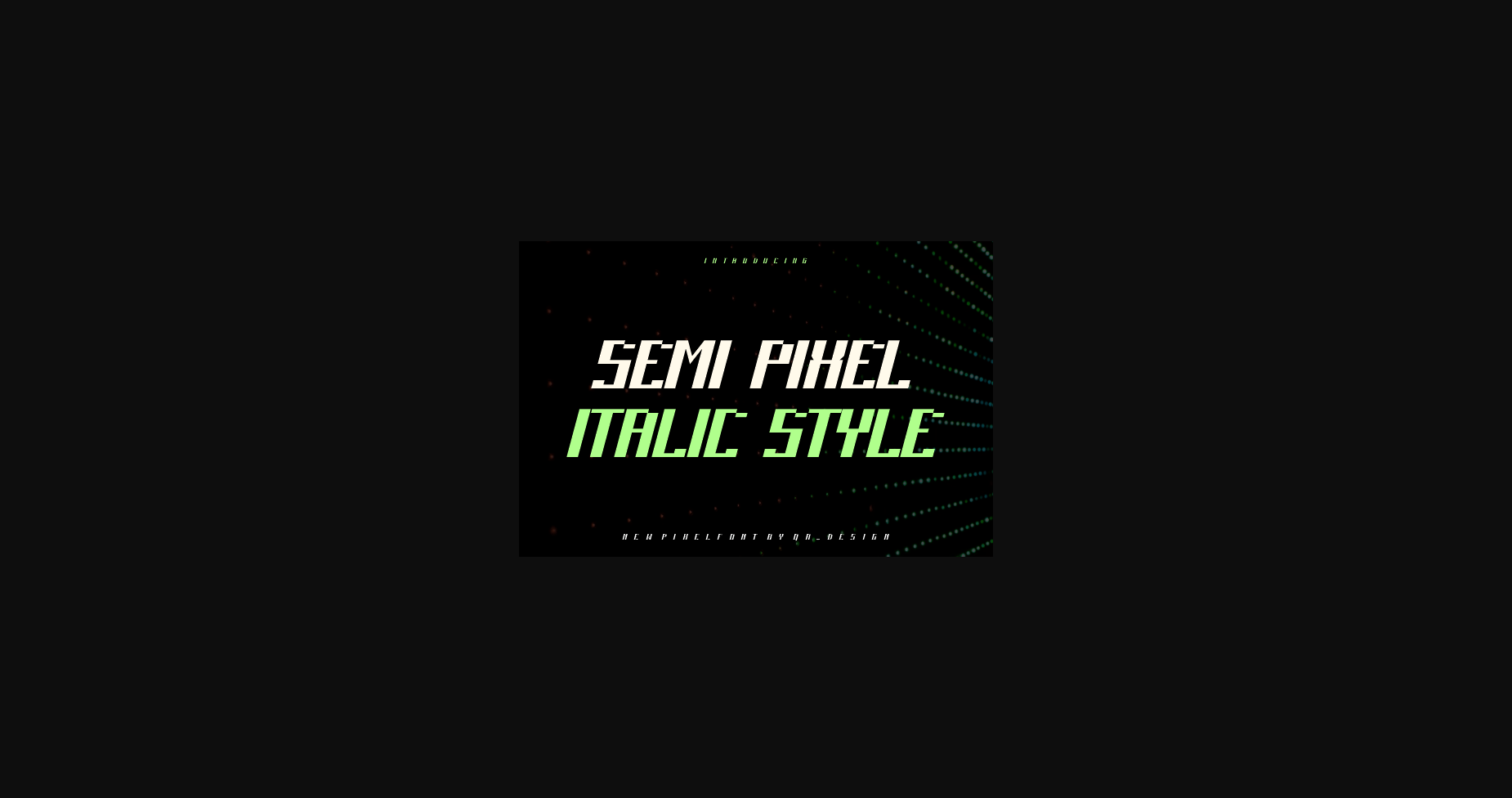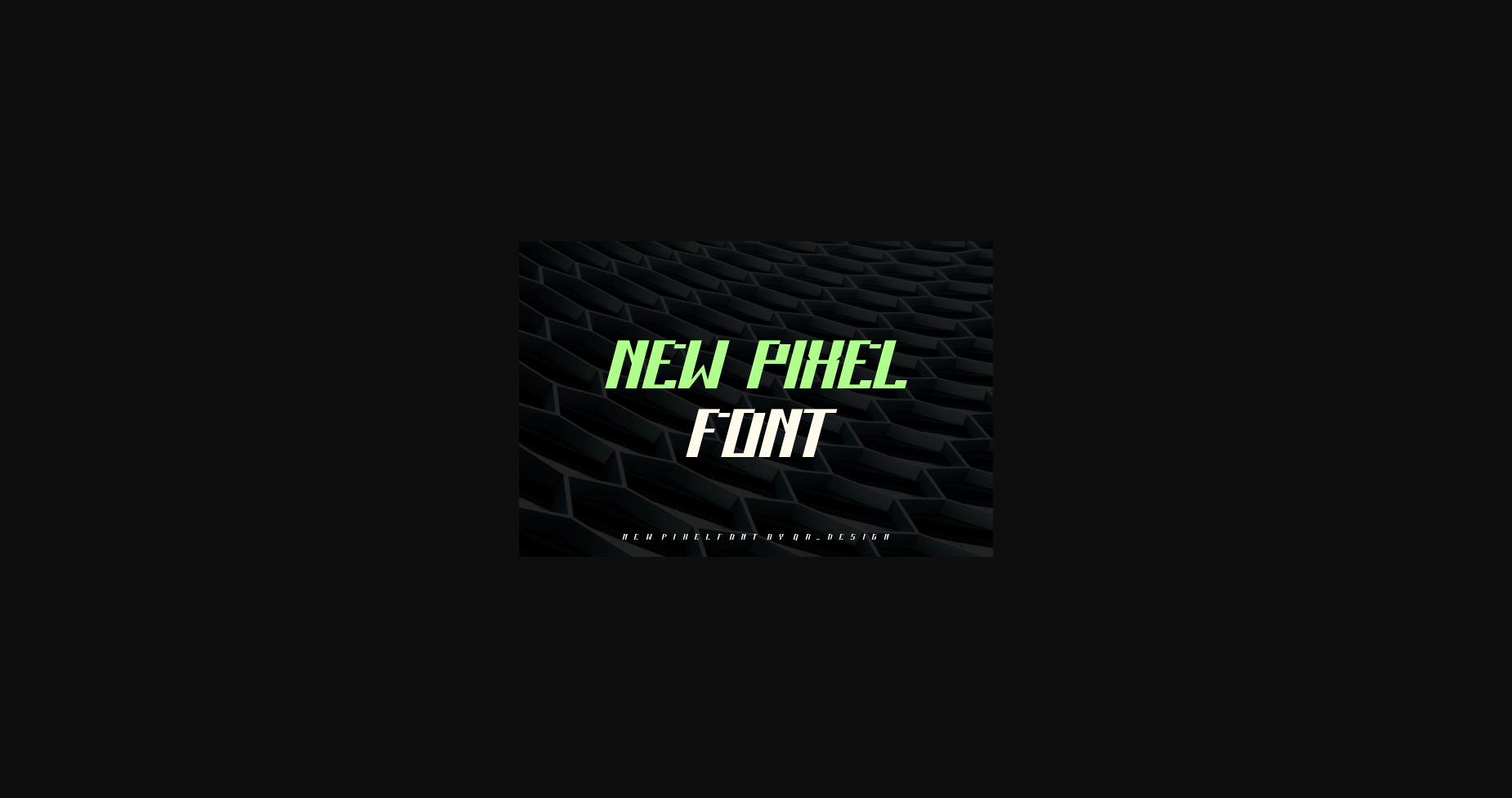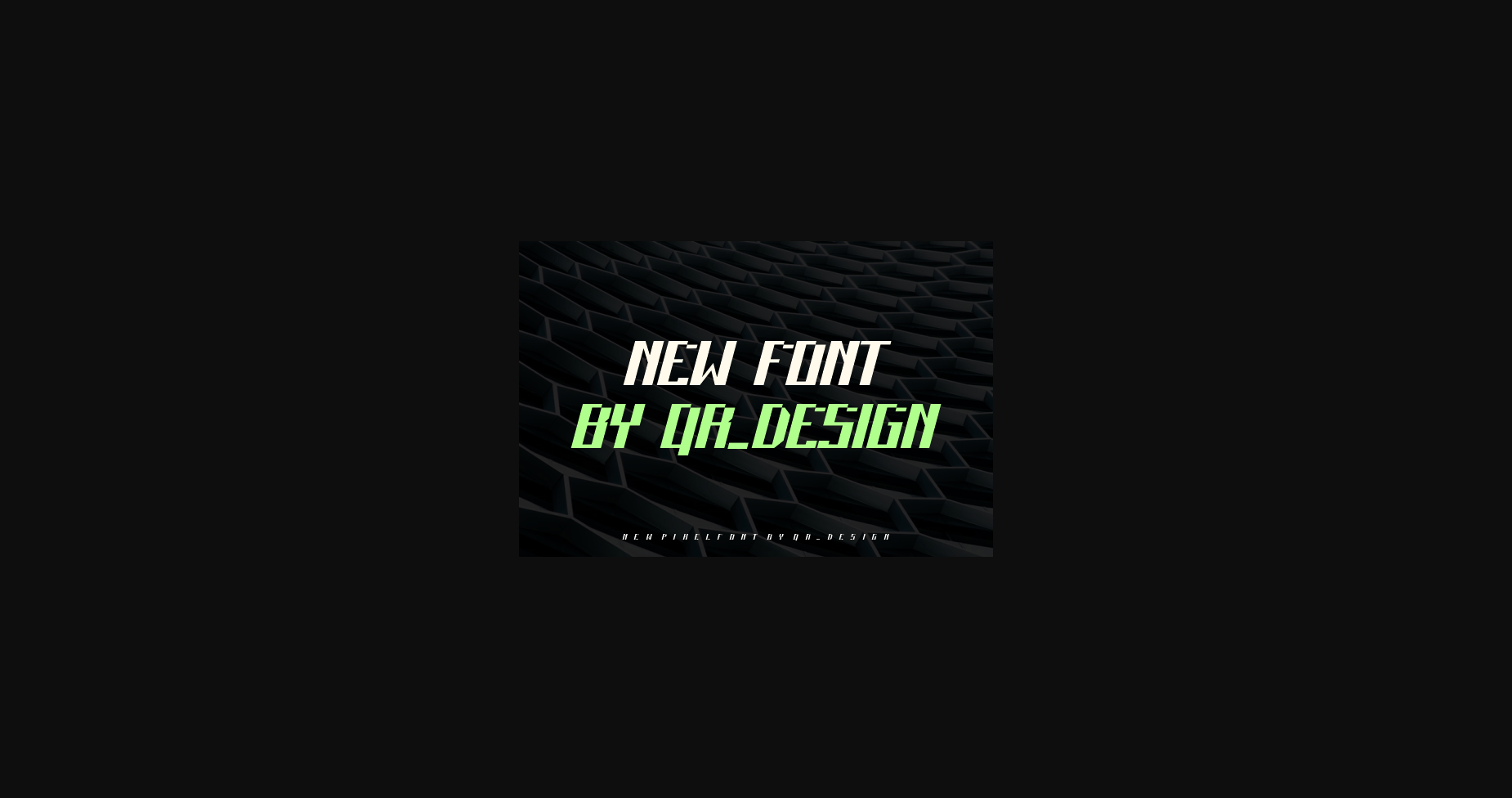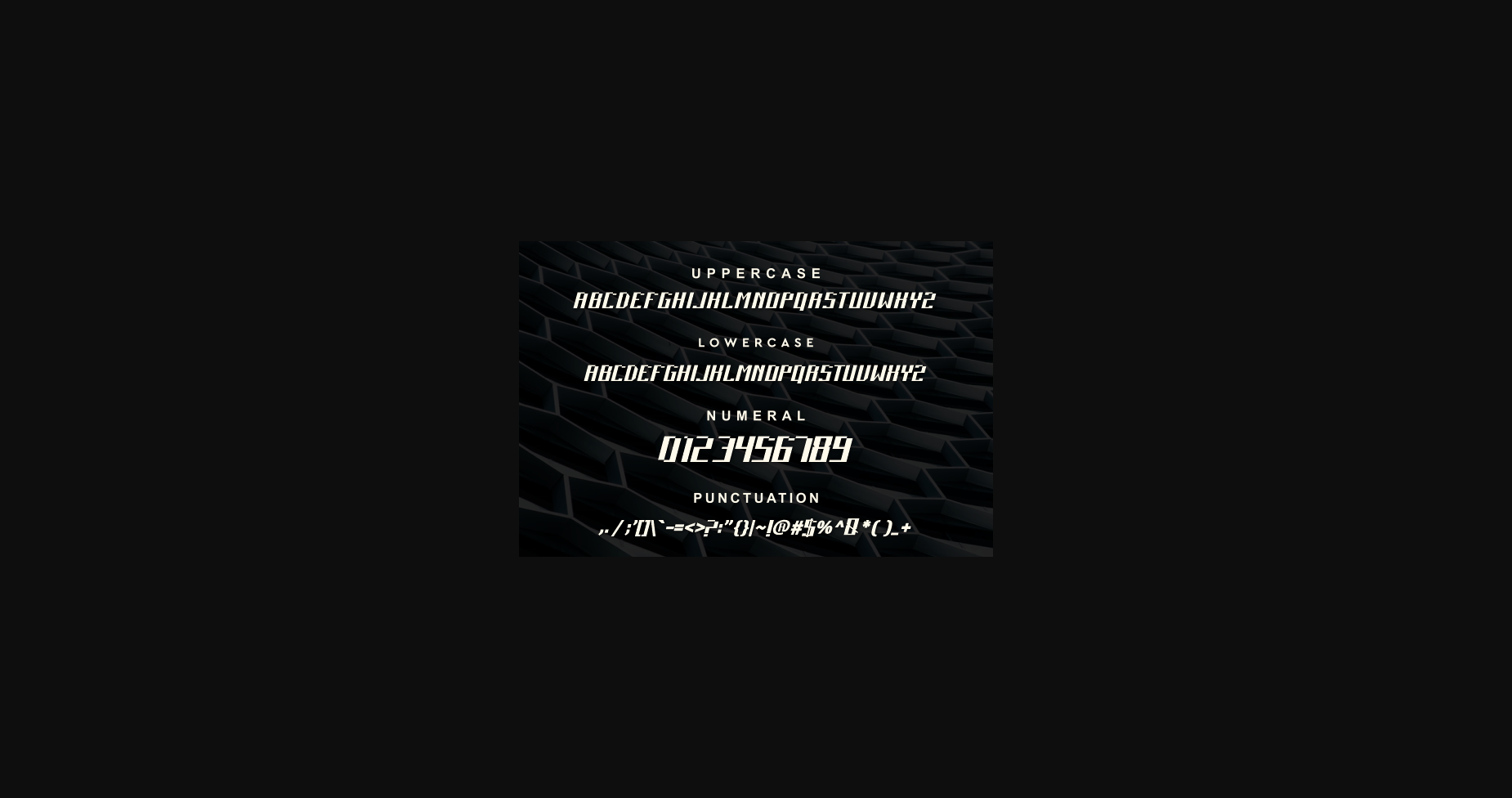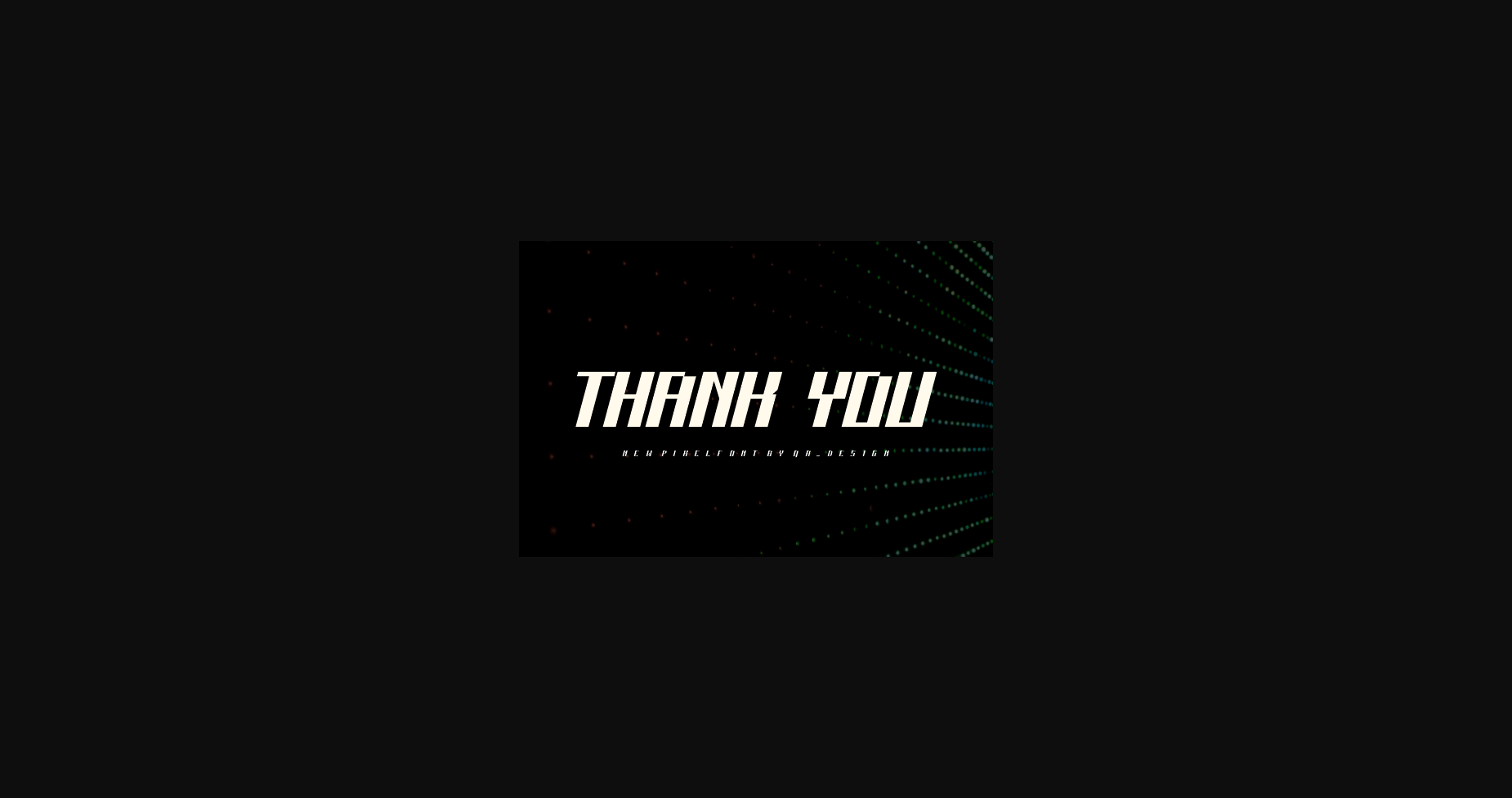
Semi Pixel Italic – Modern Font is a bold and authentic display font. The font is suitable for any branding project like logo, t-shirt printing, export, and many more. outstanding in a wide range of contexts.